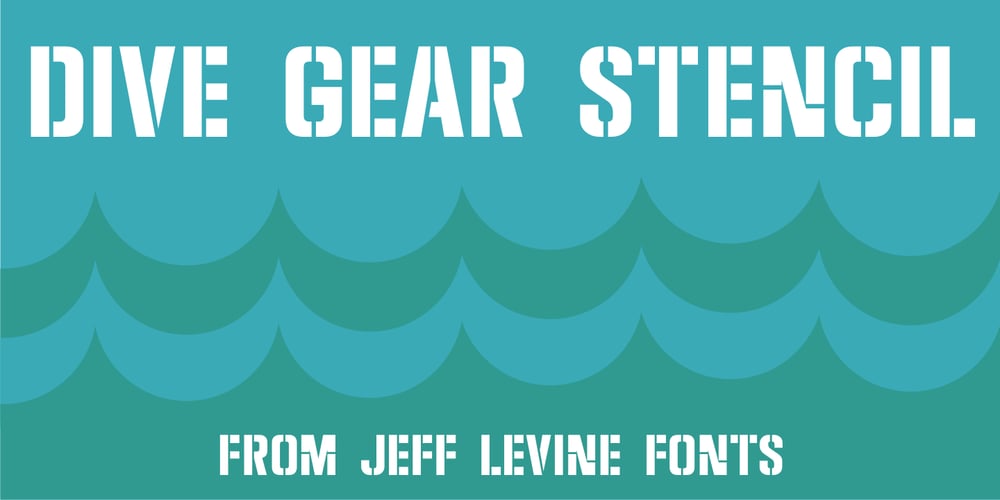
Dive Gear Stencil JNL Font Family was designed by Jeff Levine and published by Jeff Levine. Dive Gear Stencil JNL contains 1 styles and family package options. Some vintage 1960s-era packaging for dive gear (masks, swim fins, etc.) manufactured by the Voit division of AMF had various merchandise boxes hand-lettered [with some variation of design] in an interesting sans stencil. These packages formed the inspiration of Dive Gear Stencil JNL. Thanks once again to Gene Gable, whom on many occasions has provided Jeff Levine material for type design inspiration.